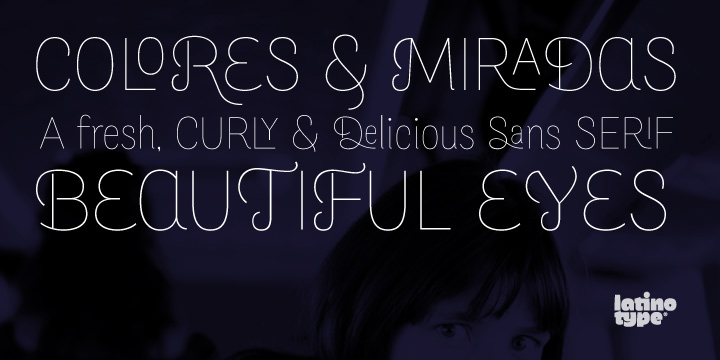
Merced
von Latinotype
Die Schriftfamilie Merced wurde von Daniel Hernández entworfen und von Latinotype veröffentlicht. Merced enthält 2 Stile und Familienpaketoptionen.
A fresh, curly and delicious sans serif. Designed by Daniel Hernandez, Merced is a sans serif font that can be given different uses due to its wide variety of alternate types. Its main virtue is the endless number of possibilities for you to write words, texts or paragraphs. Languages include: Basic Latin, Western European, Euro, Catalan, Baltic, Turkish, Central European, Romanian and Pan Africa Latin.
Designer: Daniel Hernández
Herausgeber: Latinotype
Foundry: Latinotype
Eigentümer des Designs: Latinotype